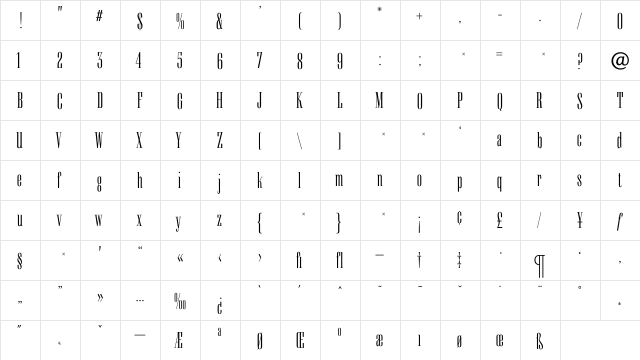
KeyboardMedium Regular
Design Context for KeyboardMedium Typeface
KeyboardMedium is a composed and adaptable typeface that performs quietly and consistently across a wide range of design contexts.